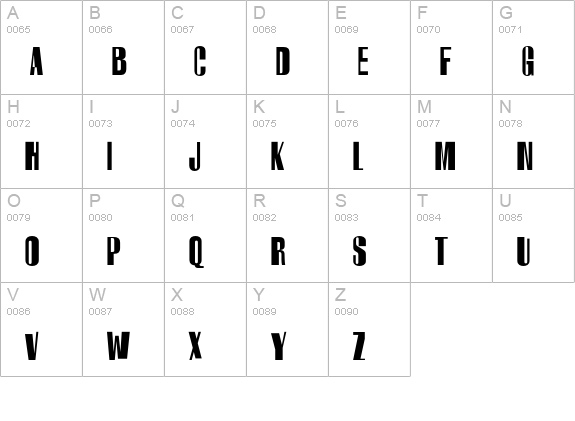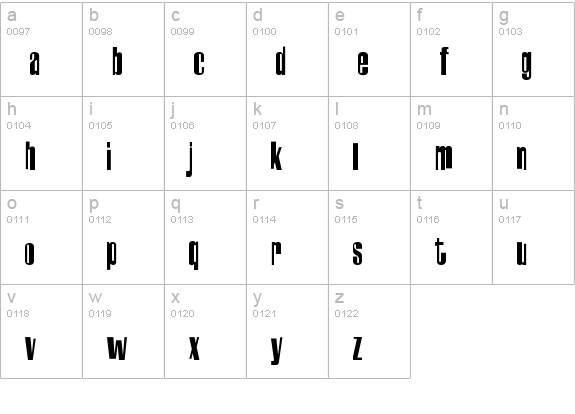
Harlem Normal is the standard, neutral variant in the Harlem typeface family \xE2\x80\x94 well suited to general body text, paragraphs, and standard typographic work.
Harlem Normal is a stunning and versatile font that effortlessly captures the essence of the iconic Harlem neighborhood. This typeface exudes a sense of urban sophistication, making it the perfect choice for any design project seeking a bold and contemporary aesthetic. With its clean lines and balanced proportions, Harlem Normal adds a touch of elegance to any text or headline. Its distinctive letterforms are both timeless and modern, making it suitable for a wide range of applications, from branding and advertising to editorial design and web graphics. One of the standout features of Harlem Normal is its versatility. It works seamlessly in both large display sizes and smaller body text, allowing designers to create cohesive and visually appealing compositions. Whether you're designing a magazine spread, a website, or a logo, Harlem Normal will bring a sense of professionalism and sophistication to your project. Another noteworthy aspect of Harlem Normal is its availability as a free download. FontsMarket.com is proud to offer this incredible font to the design community at no cost. This means that you can easily access and incorporate Harlem Normal into your projects without any financial barriers. It's a fantastic opportunity to elevate your designs without breaking the bank. In conclusion, Harlem Normal is a visually striking and adaptable font that effortlessly captures the spirit of Harlem. Its clean lines, balanced proportions, and timeless letterforms make it a valuable asset for any designer. And with its availability as a free download on FontsMarket.com, there's no reason not to add this exceptional font to your design toolkit. Let Harlem Normal take your designs to new heights today.